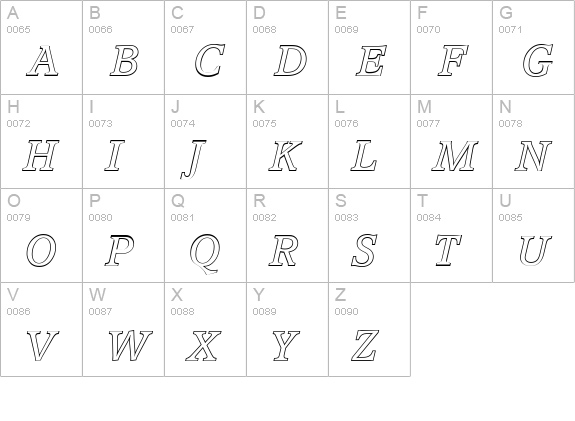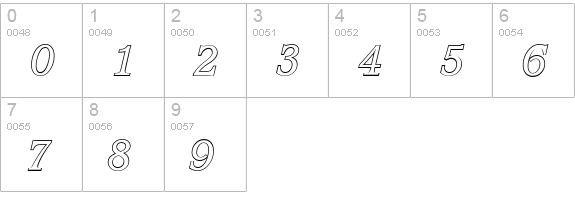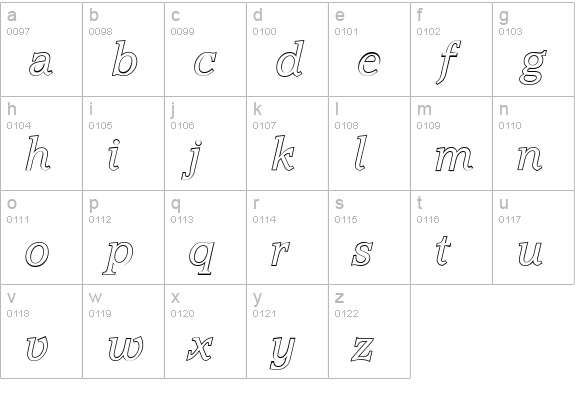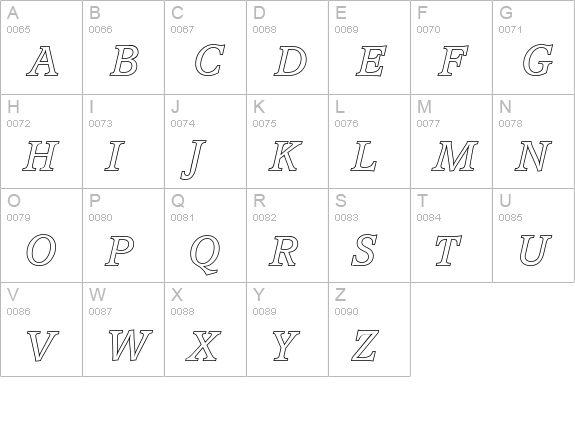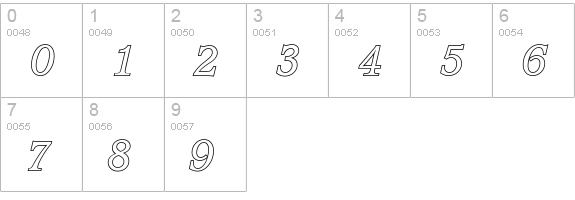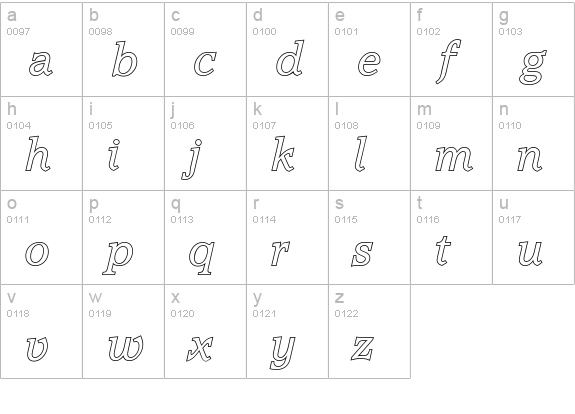
AccoladeOutline-Italic Font Details
AccoladeOutline-Italic is a distinctive, italic variant in the AccoladeOutline typeface family \xE2\x80\x94 well suited to design and typography projects.
AccoladeOutline-Italic is a stylish and elegant font that exudes sophistication and modernity. With its sleek and graceful curves, this font is perfect for adding a touch of class to any design project. The italic style adds a sense of movement and flair, making it ideal for capturing attention and creating a lasting impression. What makes AccoladeOutline-Italic even more appealing is that it is available for free download at FontsMarket.com. This means that you can easily access this beautiful font and incorporate it into your designs without any cost. Whether you're working on a professional project or a personal creative endeavor, AccoladeOutline-Italic is sure to elevate your work and bring your ideas to life. Download it today and unlock the potential of this stunning font.